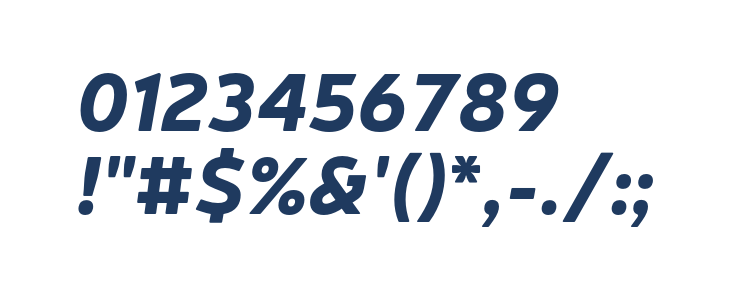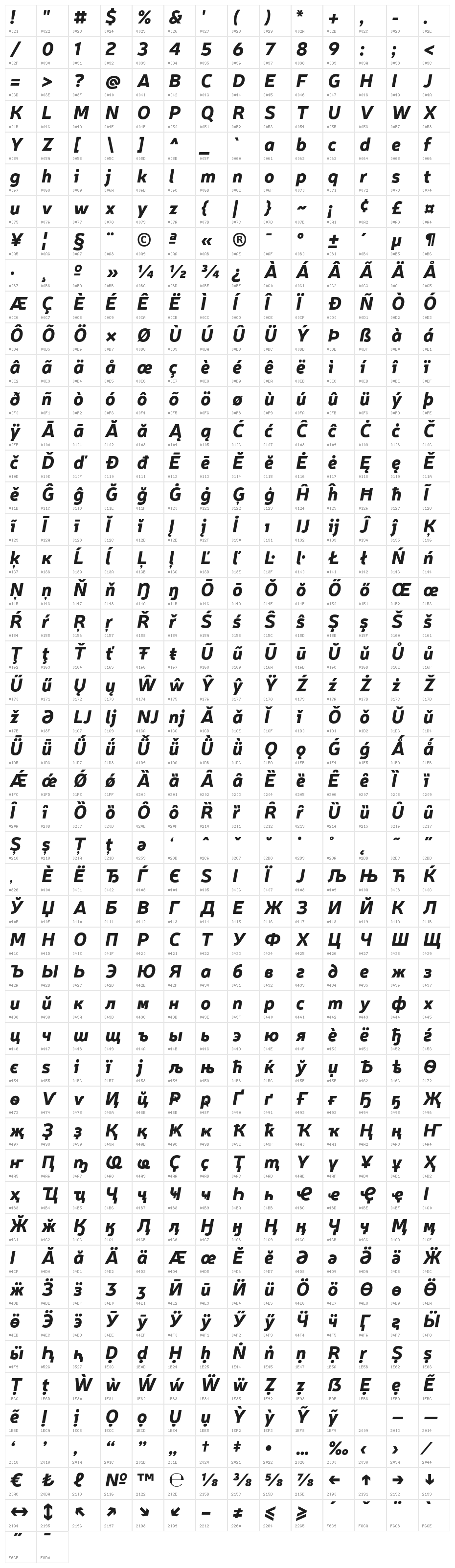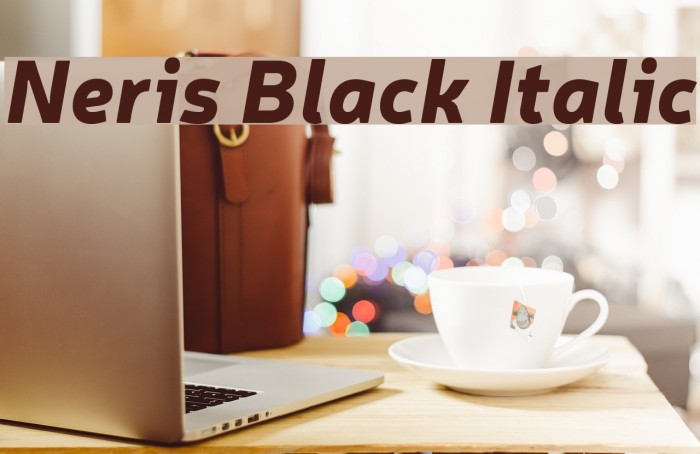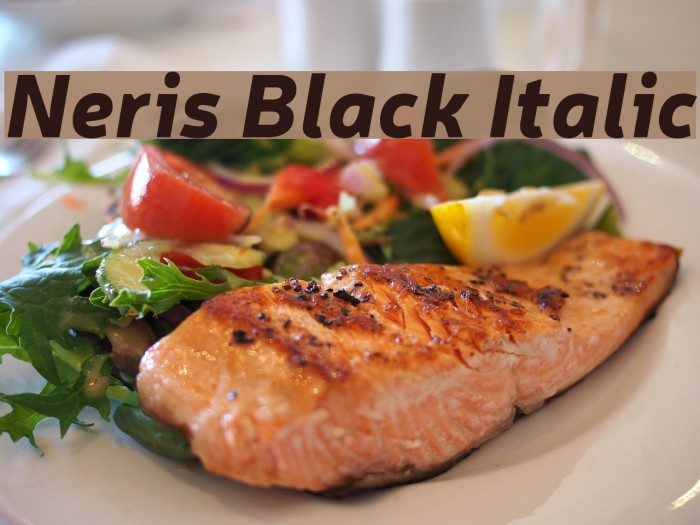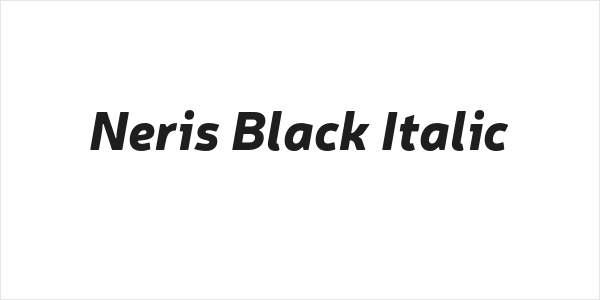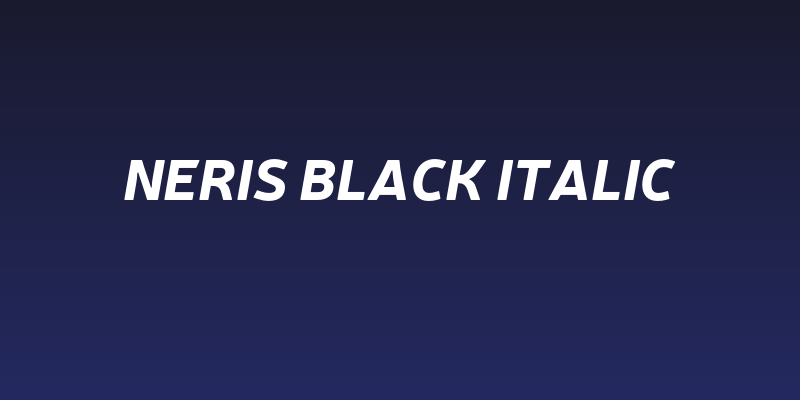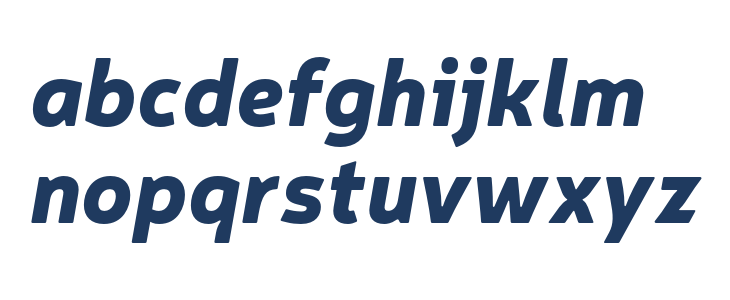
Neris Black Italic Font
Neris Black Italic Description
This font features a bold and dynamic style with a strong italic slant, giving it a sense of movement and energy. The characters are thick and robust, providing a powerful presence on the page. The uppercase and lowercase letters maintain a consistent weight, ensuring readability while adding a modern flair. The numerals are clear and straightforward, matching the boldness of the alphabet. Special characters are designed with the same attention to detail, making them stand out effectively. This font is well-suited for projects that require a strong visual impact.